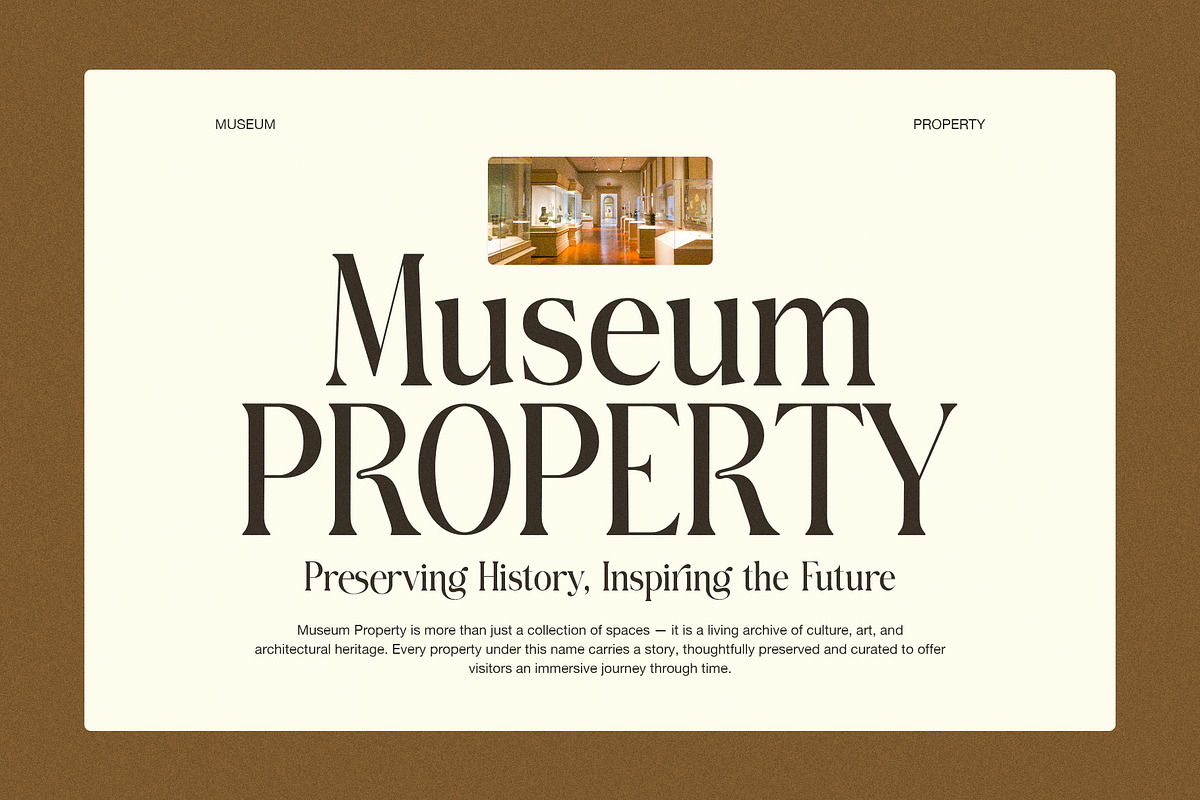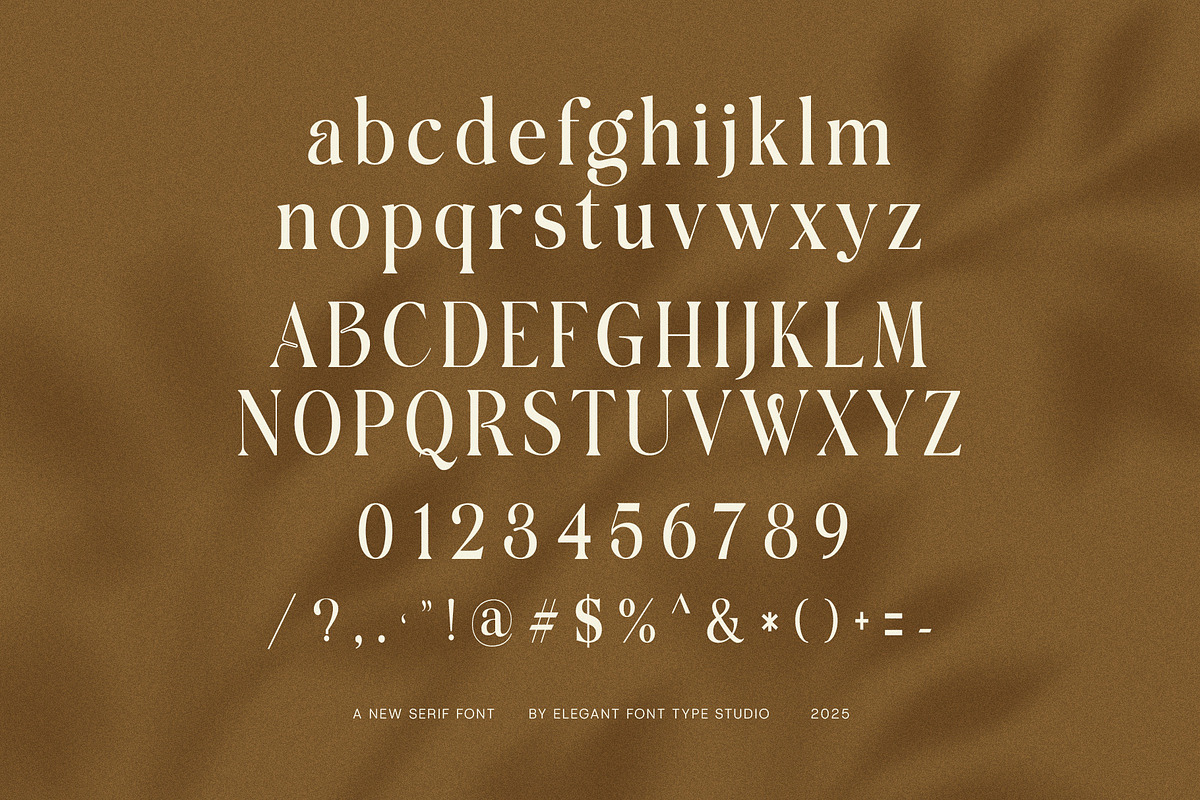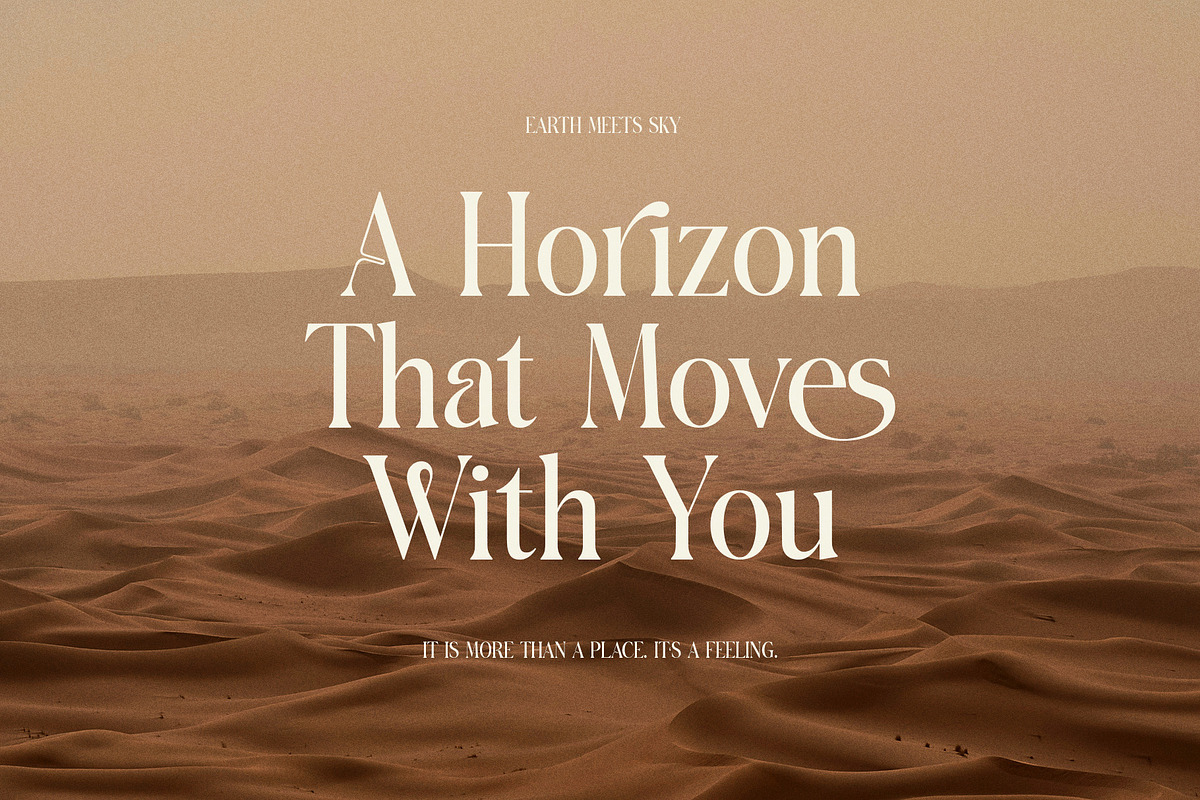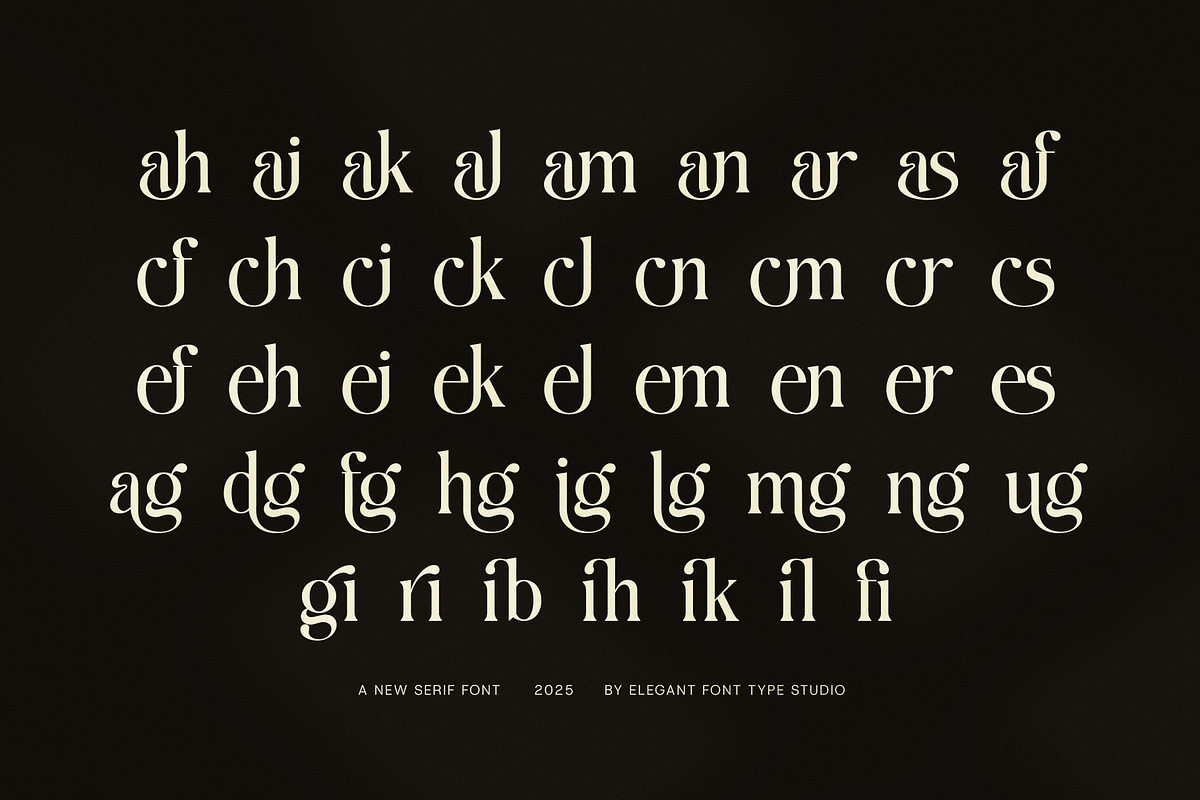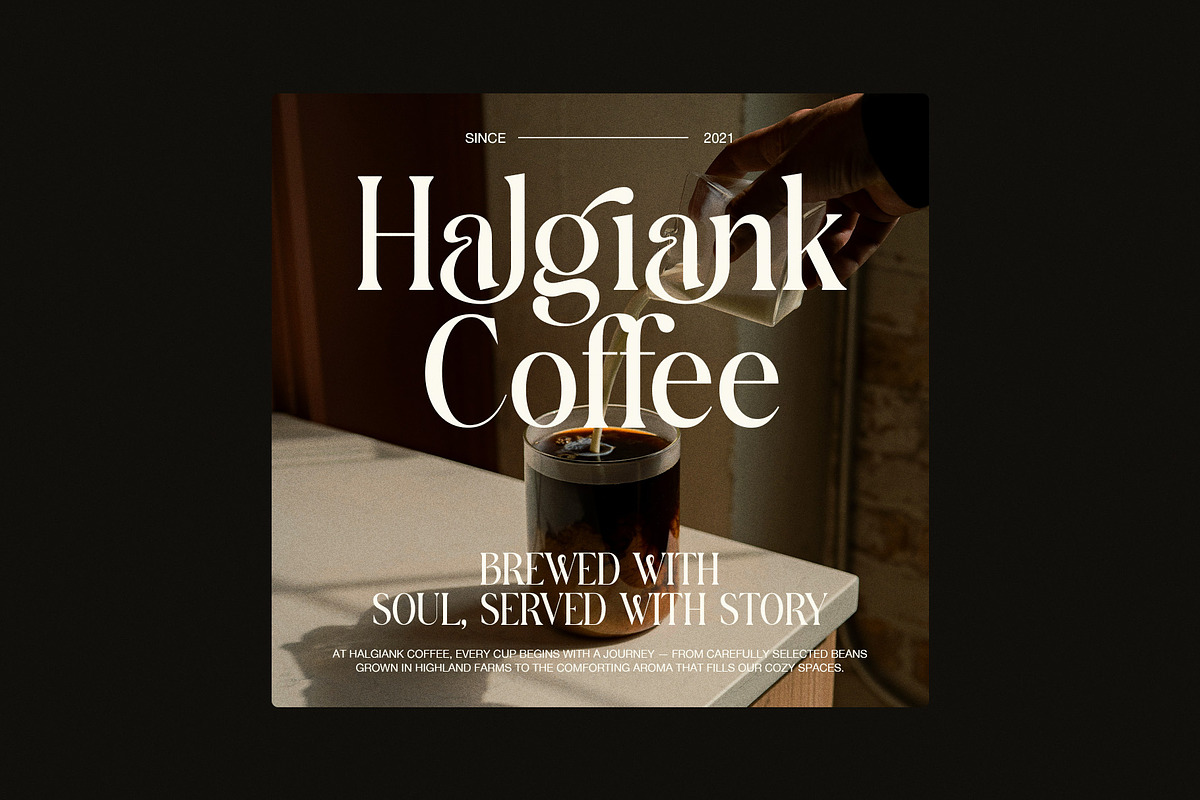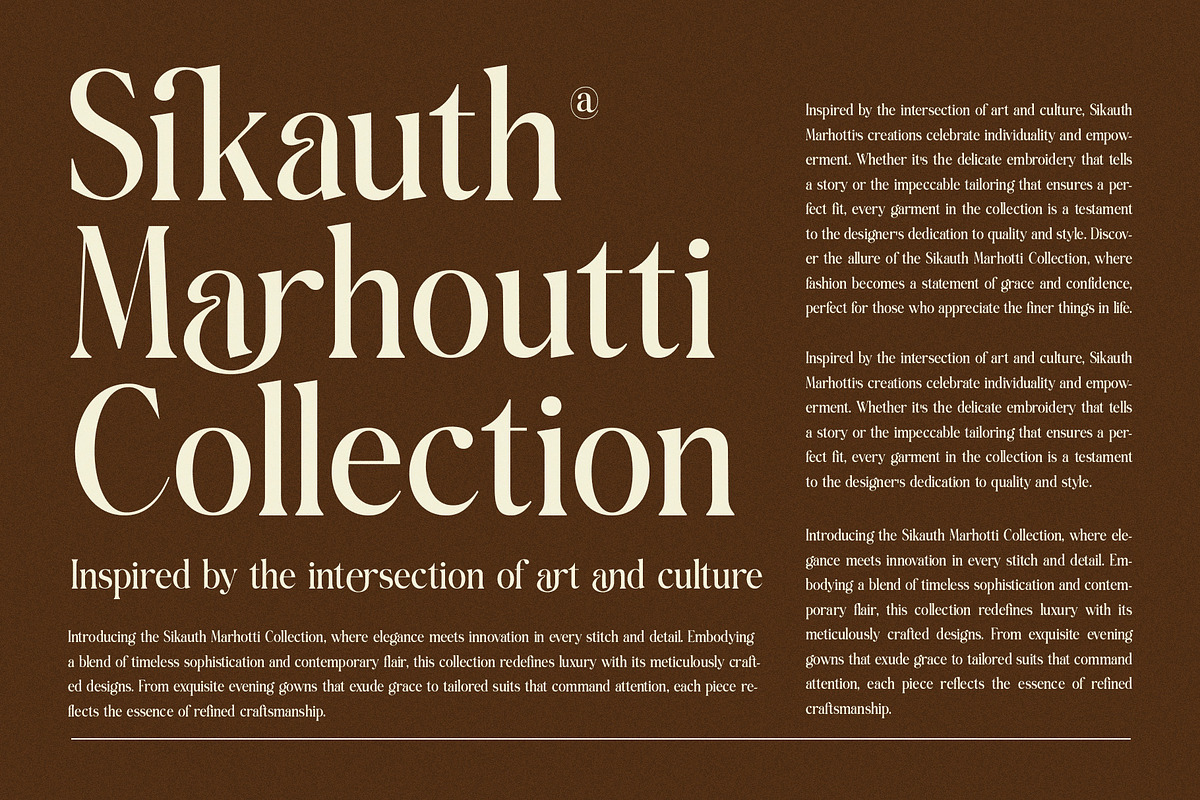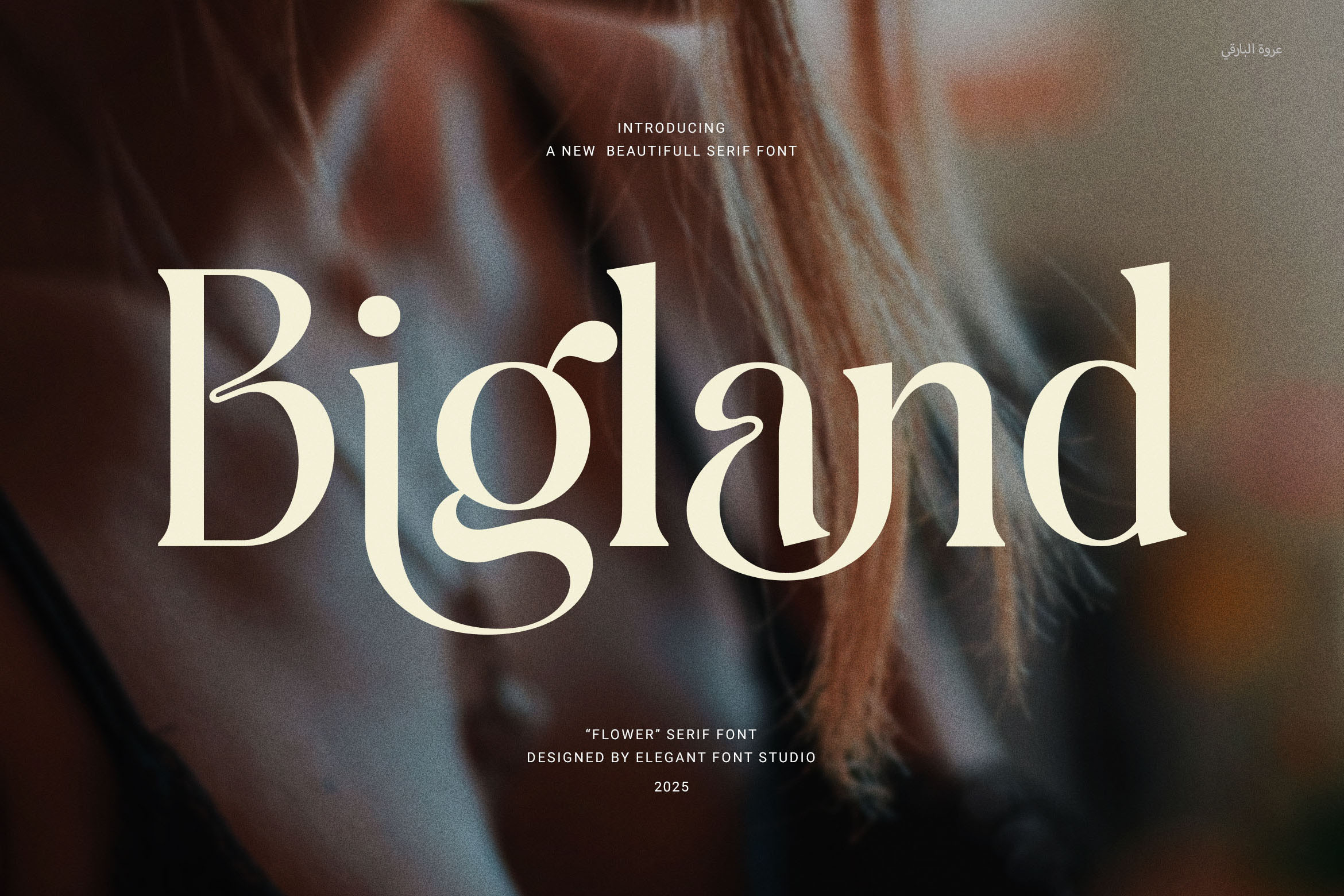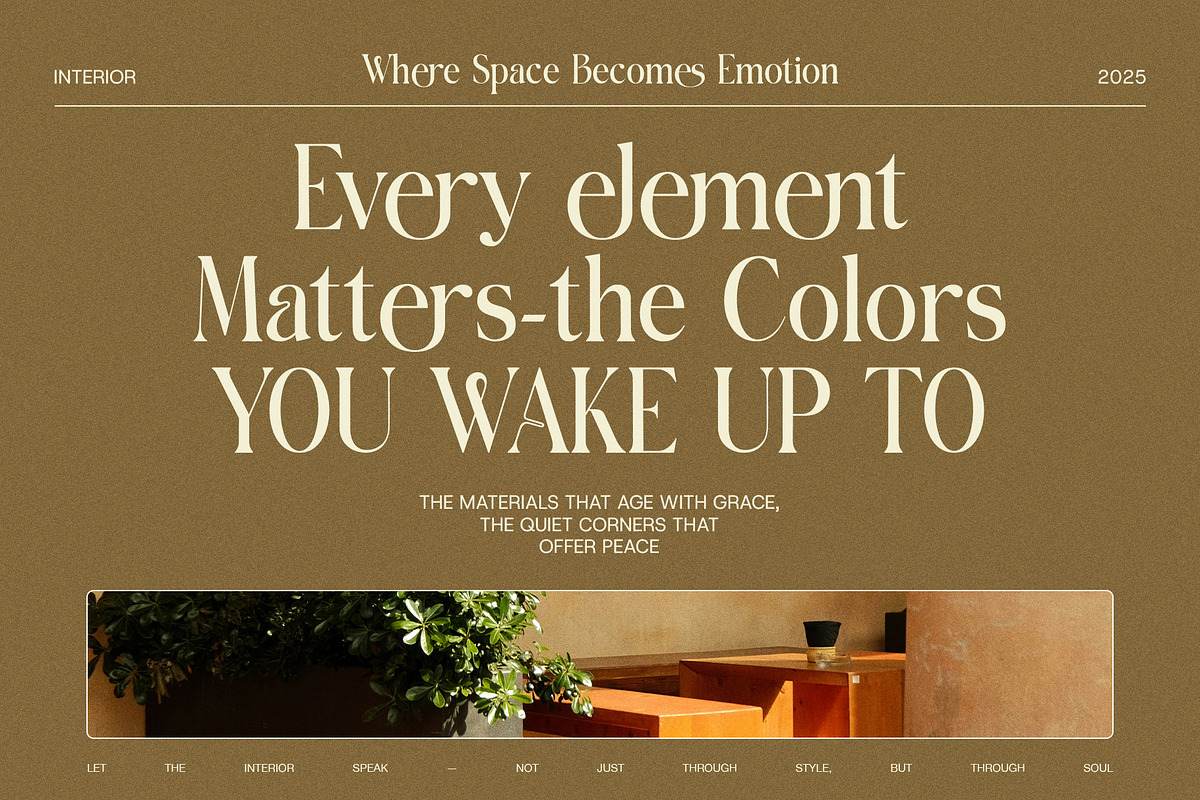
Bigland Elegant Serif Font
Bigland Elegant Serif Font is a modern serif typeface created to bring a timeless, professional touch to any design. Its elegant letterforms are carefully crafted with proportional balance, making it ideal for visual harmony in both large and small text.
This font includes functional ligatures that enhance the natural rhythm of each word, creating smooth and attractive text flow. The details are subtle but impactful—perfect for giving your layout that extra polish.
Bigland fits a wide variety of uses. Whether you’re working on:
Logos and brand identity
Website headers and digital content
Editorial design and magazine layouts
Product packaging and advertising
Boutique, fashion, or food branding
…it delivers a stylish and clear result.
With its clean structure and classic charm, this serif font is suitable for both creative and corporate environments. It’s also optimized for print and digital platforms, offering excellent legibility across screen sizes.
Whether you're launching a new product or refreshing your brand, Bigland helps you communicate with confidence and class. It’s more than a font—it’s a foundation for great design.